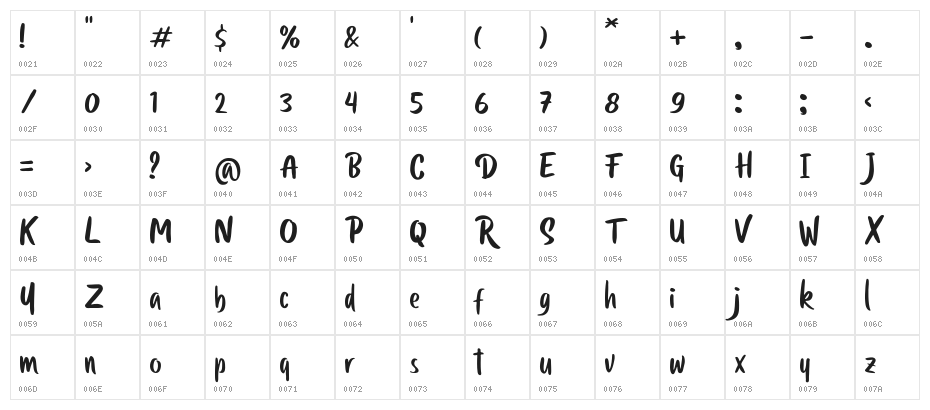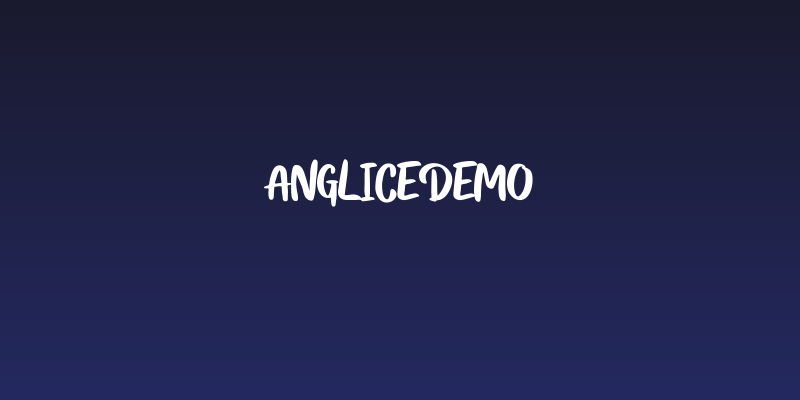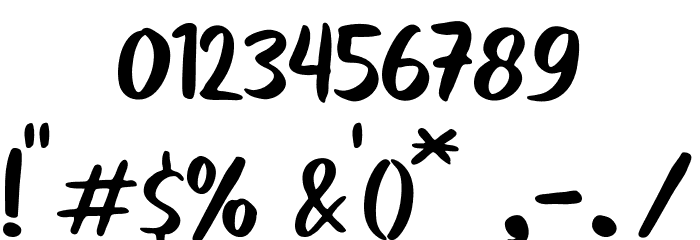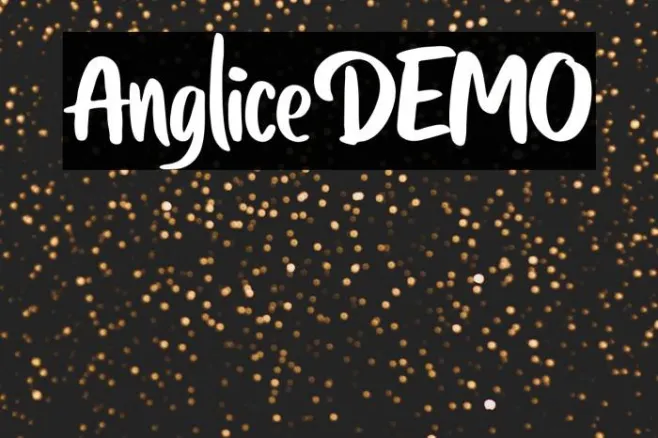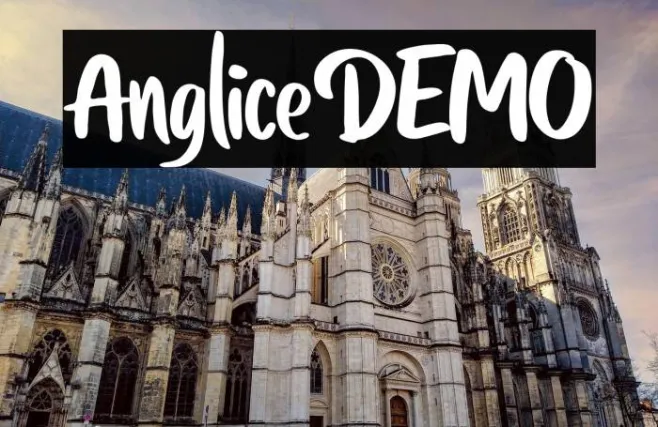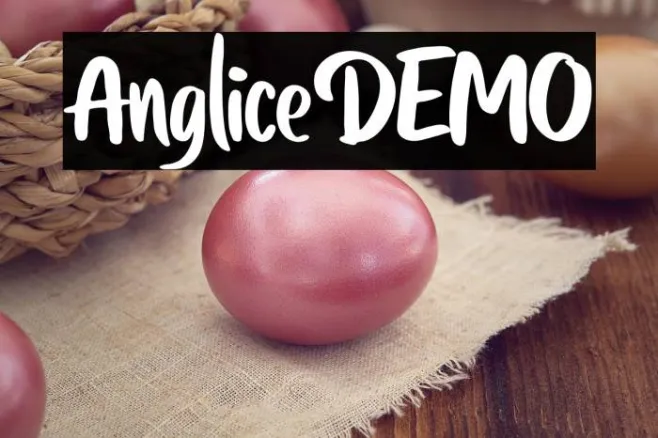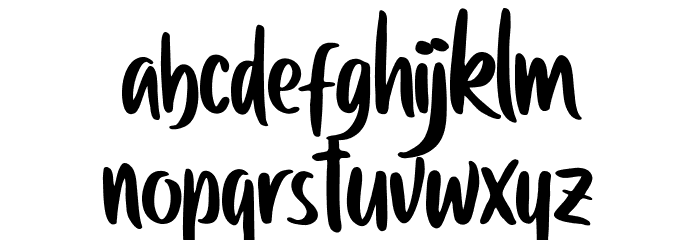
AngliceDEMO Font
AngliceDEMO Description
This font features a bold and playful handwritten style with a dynamic and energetic appearance. The characters are slightly slanted, giving a casual and informal feel. The uppercase letters are bold and prominent, while the lowercase letters maintain a consistent flow with a touch of whimsy. The numbers are clear and easy to read, matching the overall style of the font. Special characters are creatively designed, adding to the font's unique personality. This font is perfect for projects that require a fun and approachable aesthetic.
| Use Case | Headlines, Logos, Social media graphics |
| Proposed Projects | Ideal for greeting cards, playful branding, children's books, and social media graphics. |